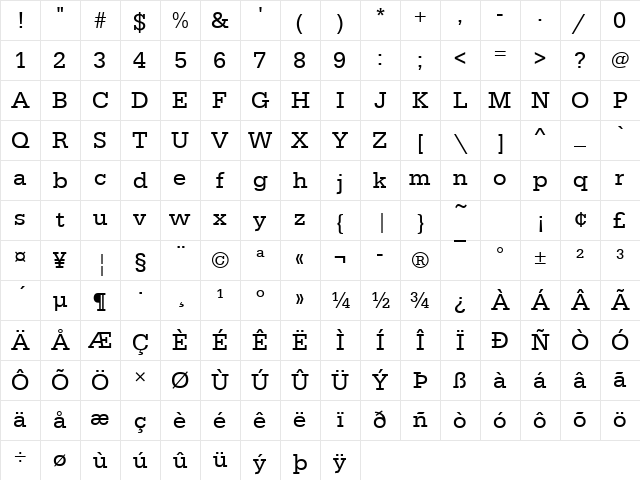
SerifaT carries the refined structure of traditional serif typography, with bracketed terminals and considered proportions that communicate credibility and craft.
Pro Tip: Use SerifaT for editorial body copy and considered headline work. Pair with a neutral sans for UI elements or captions to create a classic hierarchy.